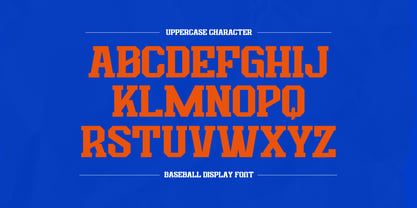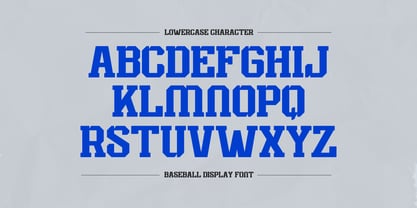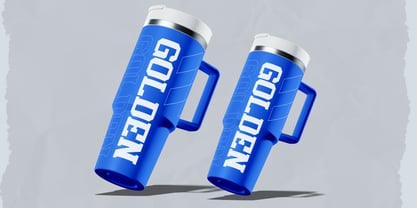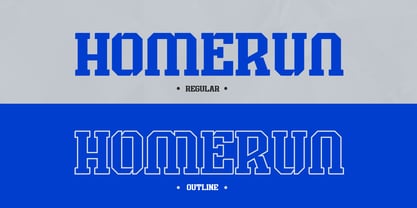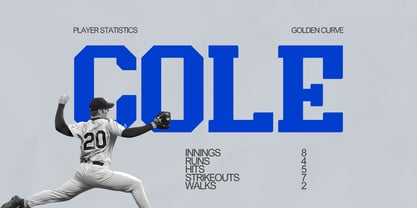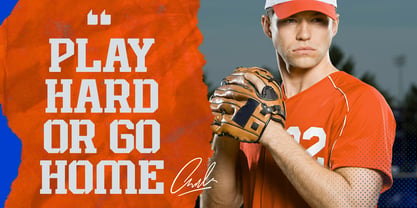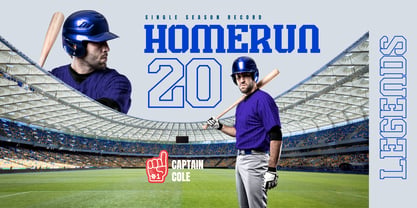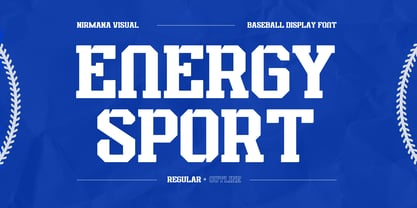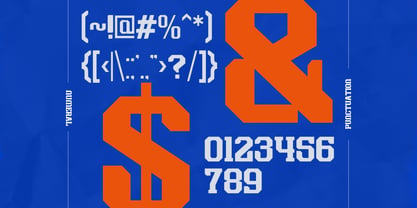
Energy Sport
by Nirmana Visual
The Energy Sport Font Family was designed by Sigit Dwipa and published by Nirmana Visual. Energy Sport contains 2 styles and family package options. More about this family
Energy Sport is a dynamic baseball-inspired font that captures the bold energy of the game. Designed with smooth curves and powerful letterforms, it delivers a strong, athletic presence ideal for team logos, jerseys, and sports branding. The Regular style offers clean, confident strokes, while the Outline version adds a classic, vintage baseball touch. Perfect for creating energetic titles and striking visual impact that reflects motion, strength, and team spirit.